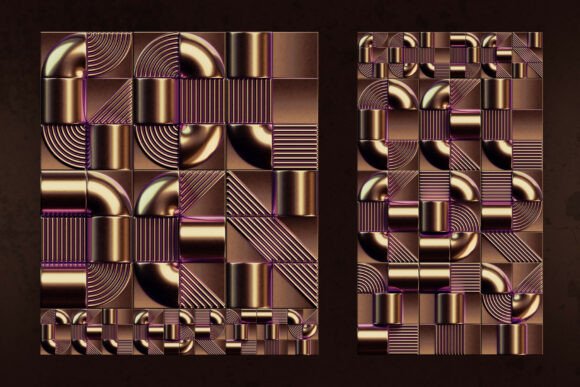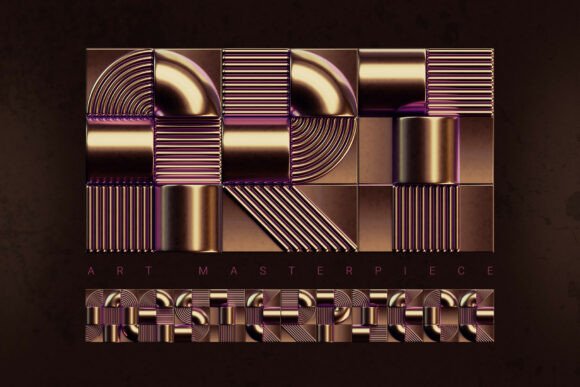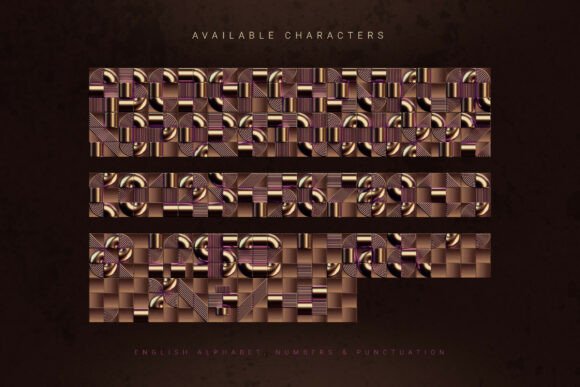
Introduction to Premiere Grand Font
Elevate your designs with Premiere Grand, a sophisticated 3D golden font that captures the sleek geometry and high-end glamour of the Art Deco era.
Its polished metallic finish and bold architectural lines make it the perfect choice for luxury branding, upscale invitations, and cinematic title headers .